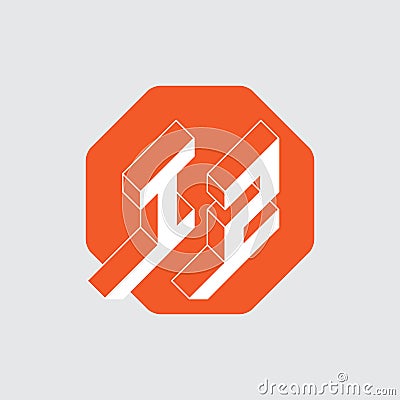
IZ Or 12 - Monogram Or Logotype. Three-dimension Letters I And Z Or Numbers 1 And 2 On A Hexagonal Substrate. Isometric 3d Font Cartoon Vector
IZ or 12 - monogram or logotype. Three-dimension letters I and Z or numbers 1 and 2 on a hexagonal substrate. Isometric 3d font #221120381
IZ or 12 - monogram or logotype. Three-dimension letters I and Z or numbers 1 and 2 on a hexagonal substrate. Isometric 3d font for design